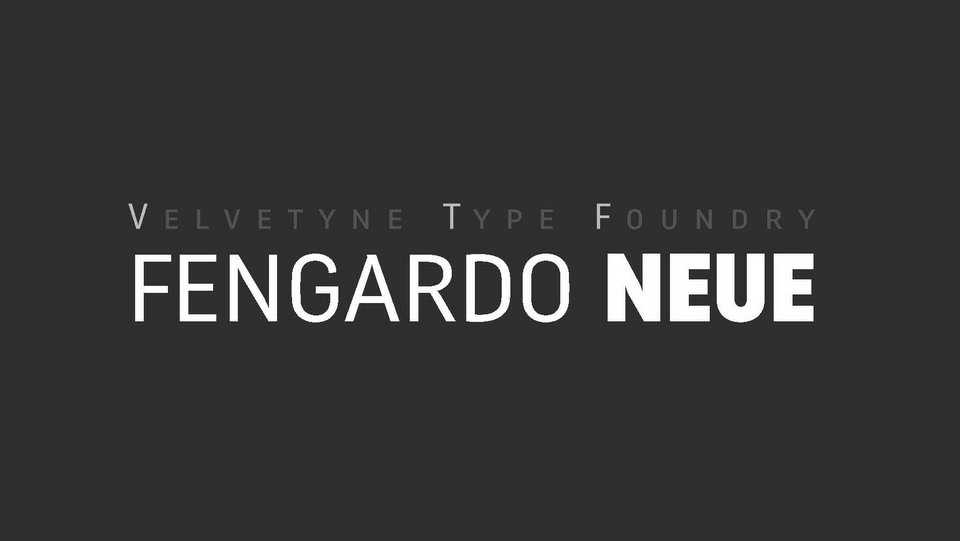
Download Fengardo Neue typeface, a legible sans serif family with a bit of softness and charm that makes it unique. Quite a lot of signs of font, making it usable for quite a wide range of materials.
Designer: Velvetyne TF